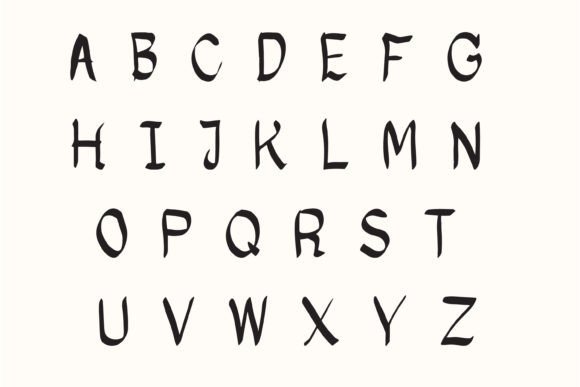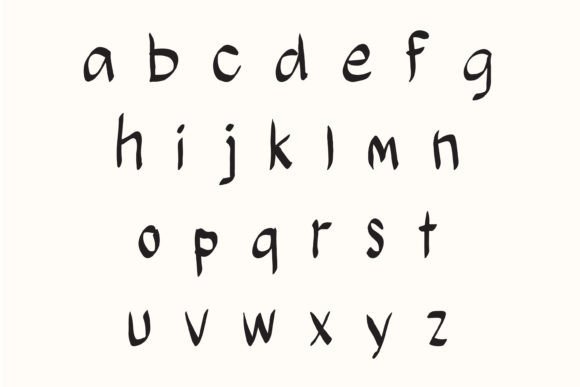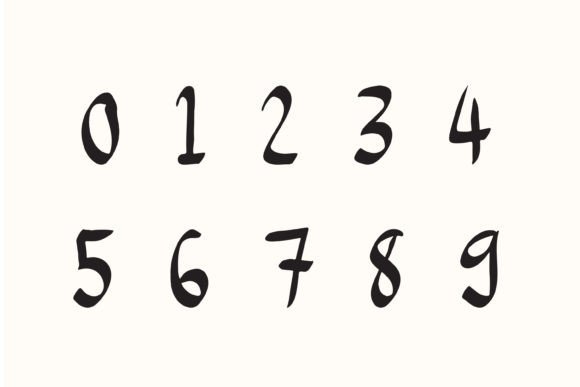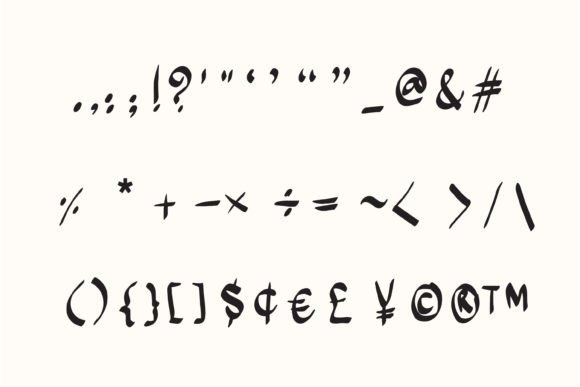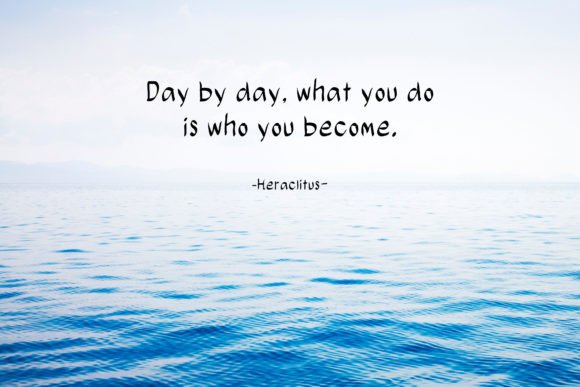
Introducing Daybyday Font: The Friendly and Cute Handwritten Font for Creative Projects
Are you a designer or crafter looking for a font that can add a personal touch to your creative projects? Look no further than Daybyday Font, a friendly and cute handwritten font that’s perfect for a variety of applications. In this article, we’ll explore the features and benefits of Daybyday Font, and show you how it can elevate your designs and crafts.
What is Daybyday Font?
Daybyday Font is a handwritten font that’s designed to bring a casual and approachable feel to your projects. It’s a carefully crafted font that’s inspired by everyday handwriting, making it perfect for designs that require a personal touch. With its friendly and cute appearance, Daybyday Font is sure to capture the hearts of your audience.
Features of Daybyday Font
So, what makes Daybyday Font so special? Here are some of its key features:
- Friendly and Cute Appearance: Daybyday Font has a warm and inviting appearance that’s perfect for designs that require a personal touch.
- Handwritten Style: The font’s handwritten style gives it a unique and authentic feel that’s hard to replicate with other fonts.
- Suitable for Various Projects: Daybyday Font is versatile and can be used for a variety of projects, including greeting cards, posters, social media, mugs, shirts, and more.
- Casual Touch: The font’s casual appearance makes it perfect for designs that require a relaxed and approachable feel.
Use Cases for Daybyday Font
Daybyday Font is a versatile font that can be used for a wide range of projects. Here are some use cases to get you started:
- Greeting Cards: Add a personal touch to your greeting cards with Daybyday Font’s friendly and cute appearance.
- Posters: Create eye-catching posters with Daybyday Font’s bold and playful style.
- Social Media: Use Daybyday Font to create engaging social media posts that stand out from the crowd.
- Mugs and Shirts: Add a casual touch to your mugs and shirts with Daybyday Font’s unique and authentic style.
Benefits of Using Daybyday Font
So, why should you choose Daybyday Font for your projects? Here are some benefits to consider:
- Easy to Read: Daybyday Font is clear and easy to read, making it perfect for designs that require a lot of text.
- Unique and Authentic: The font’s handwritten style gives it a unique and authentic feel that’s hard to replicate with other fonts.